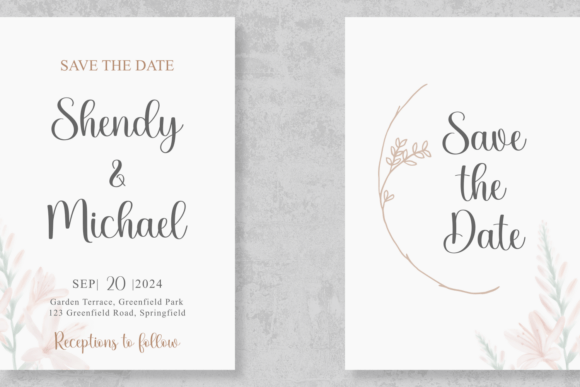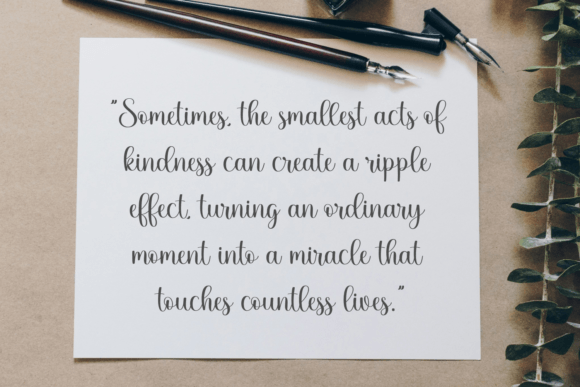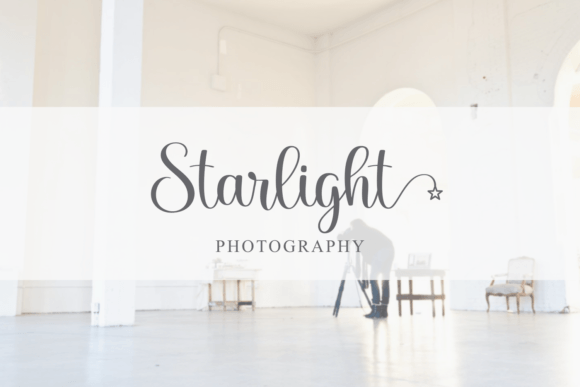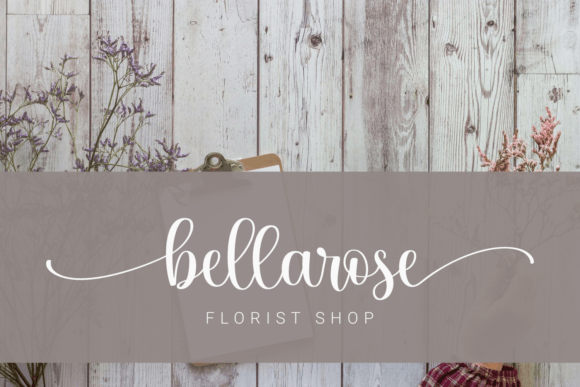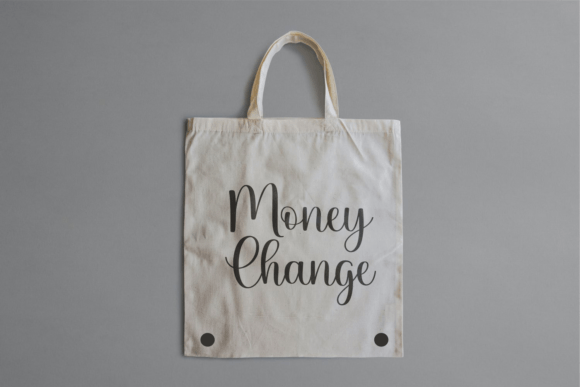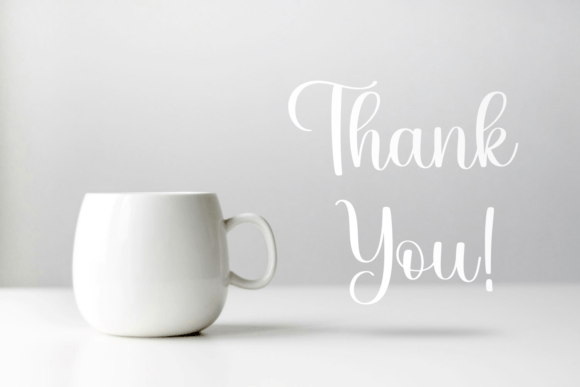
The Perfect Font for a Fresh Perspective
Have you ever stared at a blank canvas, searching for the perfect font to bring your design to life? The blank page can be intimidating, but sometimes, all it takes is the right font to spark inspiration. For designers, finding that one special font can be a game-changer. Enter Change Font, a refined script font that seamlessly blends modern elegance with a touch of minimalism.
Change Font is designed to elevate your creative projects, from sophisticated wedding invitations to chic logos and timeless branding. Its clean design and graceful strokes create a harmonious balance, making it a valuable addition to any designer’s toolkit. With PUA encoding support, accessing its stunning glyphs and swashes is a breeze, ensuring a seamless design experience.
Change Font Key Features
Designer Review: Change Font